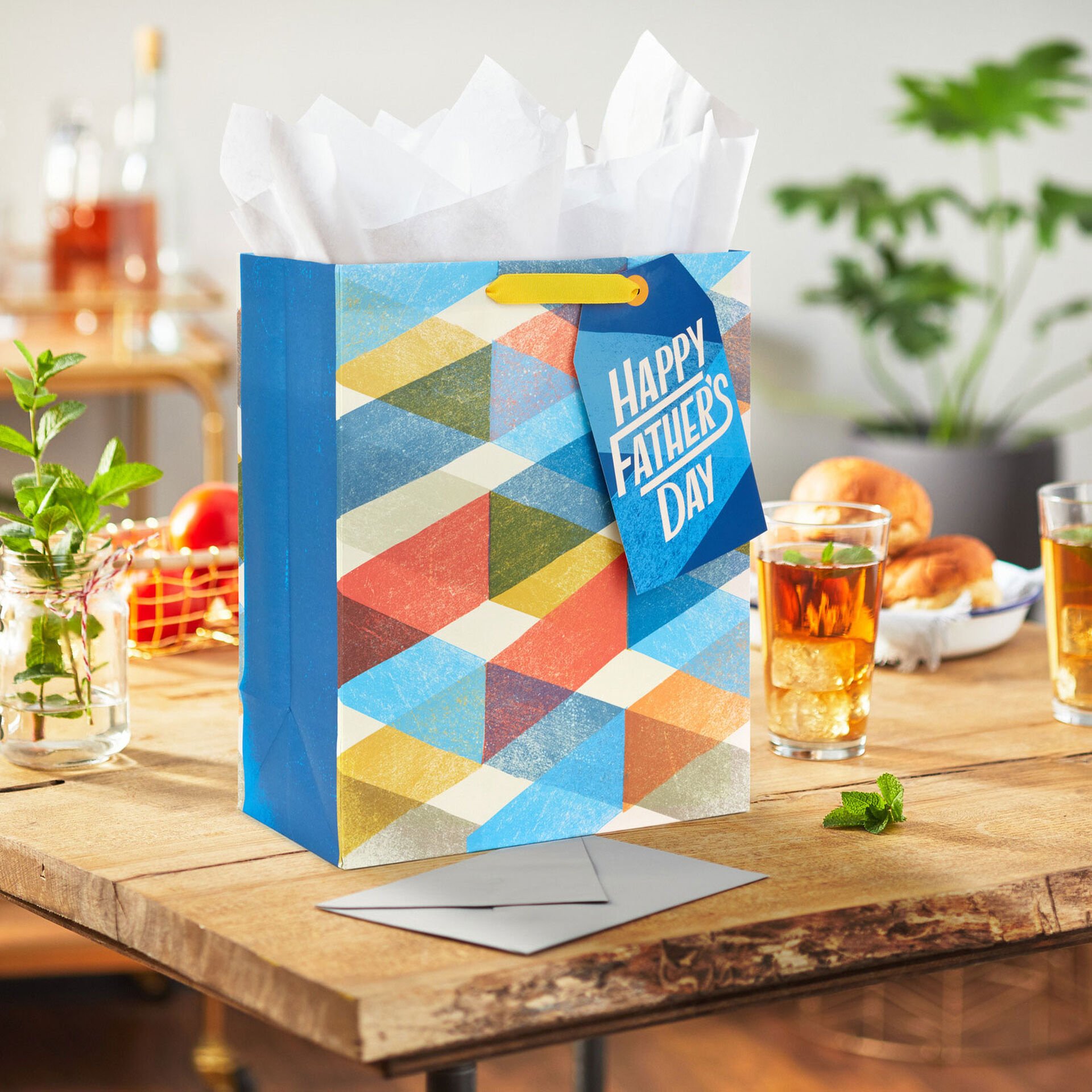
Gift Bag Lettering for Hallmark
Father’s Day Gift Bag Lettering
I was so excited to see my lettering used for these two fun Hallmark Father’s Day gift bags from a collection the talented illustrator Jeffrey Nguyen and I collaborated on for FD 2023.
Hallmark Gift Tag Lettering
The holiday season is in full swing and I’m stocking up on these beautiful gift bags that I had the opportunity to hand letter tags for. The paper craft details are stunning and these would be great to reuse for years to come! I especially love the elegant gold foil details.
You Are Next-Level Amazing
This week I headed into my local Gold Crown Store to pick up a few things and had the fun surprise of seeing my lettering on this iridescent gift bag! I couldn’t help but buy a few — so perfect for birthdays, Mother’s Day or even bridal showers. Enjoy!
Christmas Gift Product for Hallmark!
It’s almost Christmas and this year I was extra excited to wrap gifts because i got to use some Hallmark gift wrap and bags featuring my lettering! I hope you have a wonderful holiday, no matter what your celebrations look like this year.
Valentine’s Day Bag for Hallmark
February is here and I am excited to share my lettering featured on this Hallmark Valentine’s Day gift bag!